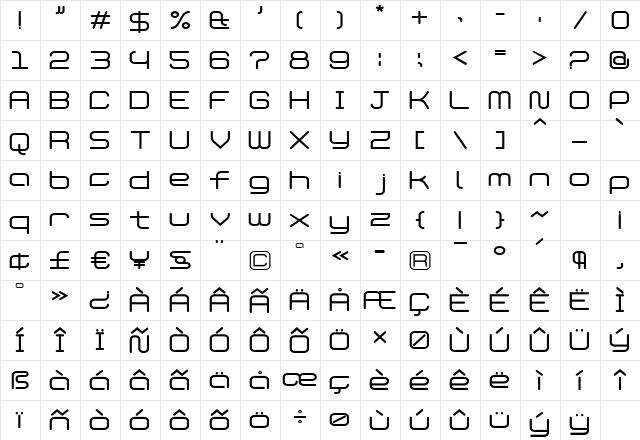
PhantomRegular Regular
PhantomRegular is a composed and adaptable typeface that performs quietly and consistently across a wide range of design contexts.